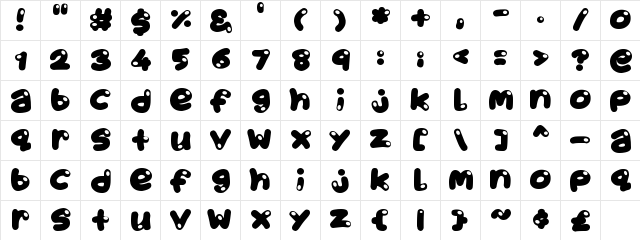
Juicy Fruity Regular
Design Context for Juicy Fruity Typeface
Juicy Fruity is a composed and adaptable typeface that performs quietly and consistently across a wide range of design contexts.
Pro Tip: Use Juicy Fruity in both headline and body roles to test its range before committing to a single application.